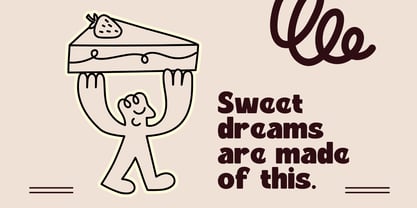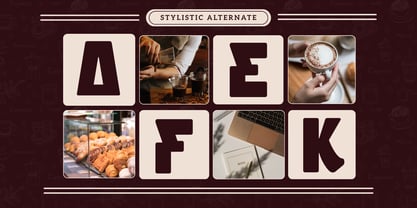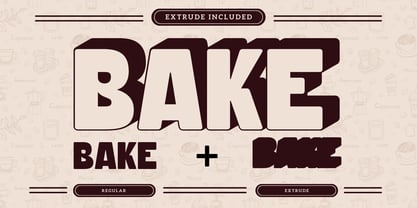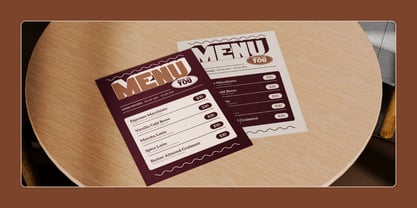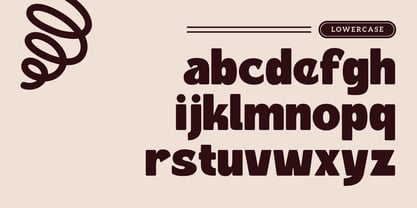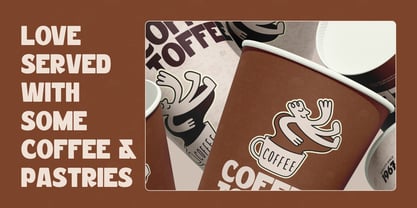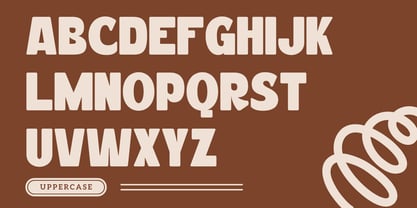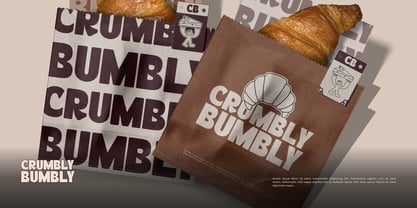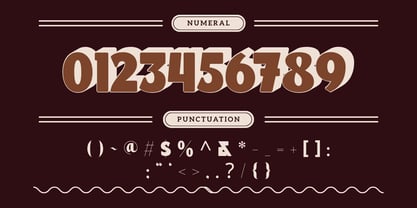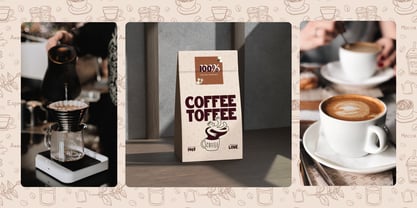
Flury Muffin
by Nirmana Visual
The Flury Muffin Font Family was designed by Sigit Dwipa and published by Nirmana Visual. Flury Muffin contains 2 styles and family package options. More about this family
Flury Muffin is a playful food font designed for logo branding and product packaging. With its smooth curves and tasty charm, it brings a homemade and friendly touch to any design. The Regular style offers a clean, bold look, while the Italic adds a fun, flowing feel—perfect for bakery, café, or dessert branding. Flury Muffin makes every label, menu, or logo look deliciously inviting and full of character.
Designers: Sigit Dwipa
Current Foundry: Nirmana Visual